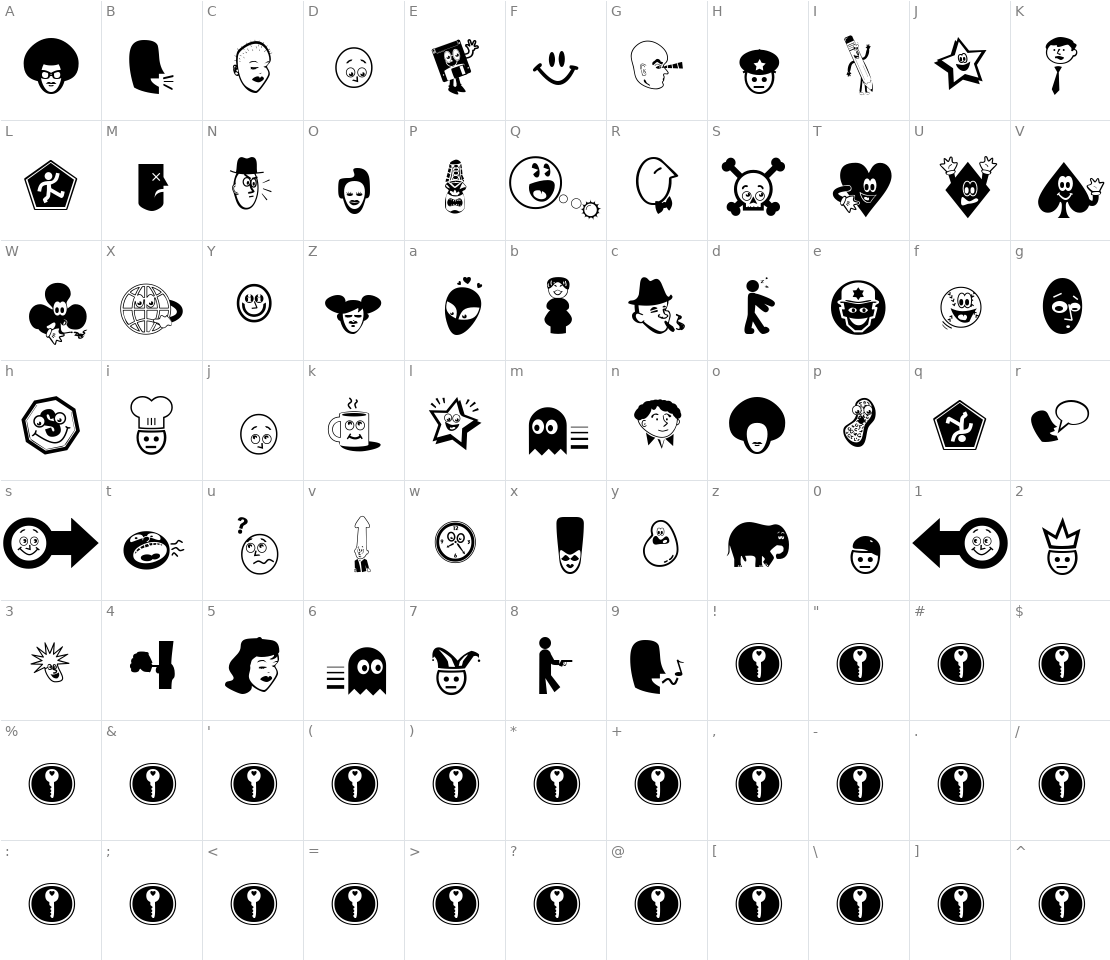
Goodhead
Goodhead is a novelty dingbat font from Fontalicious where each key maps to a different cartoon head or face. The characters are simple, expressive, and a little goofy, covering a range of hairstyles and expressions that feel like doodles from someone's notebook. Useful for playful layouts, icons, or comic projects where you need a quick cast of characters without drawing them from scratch.